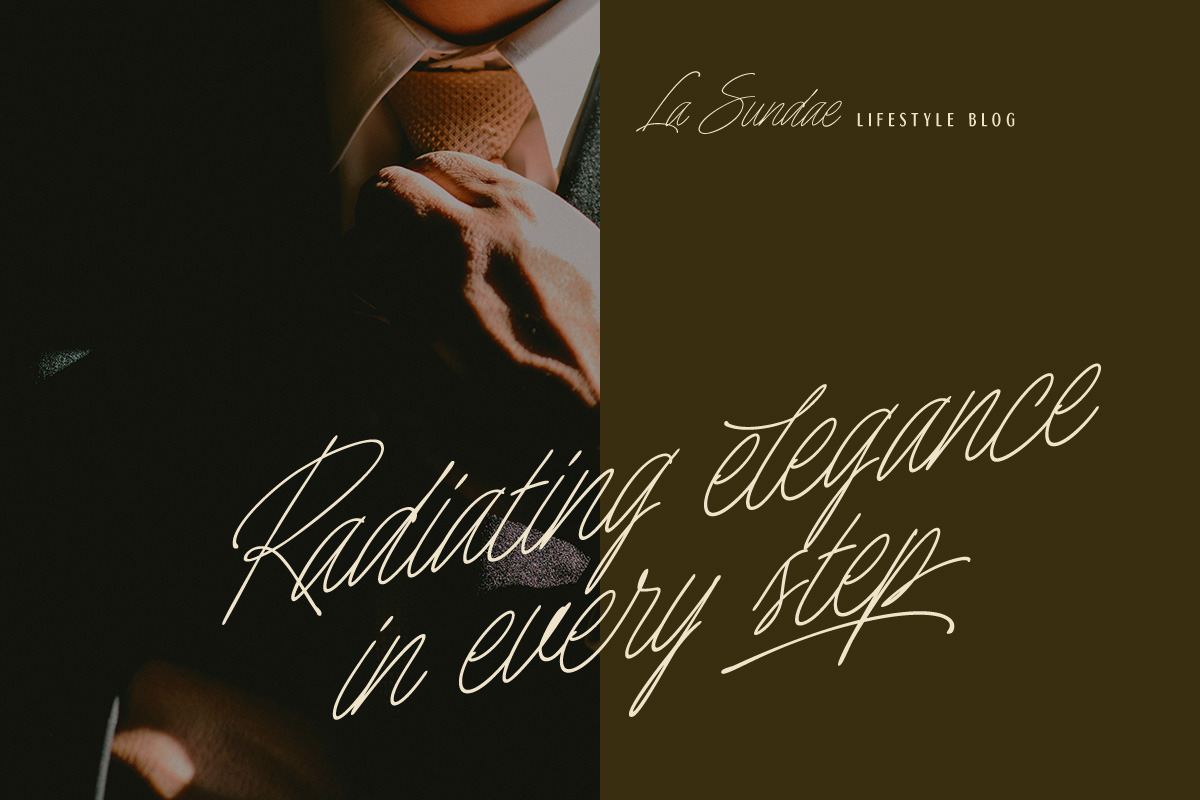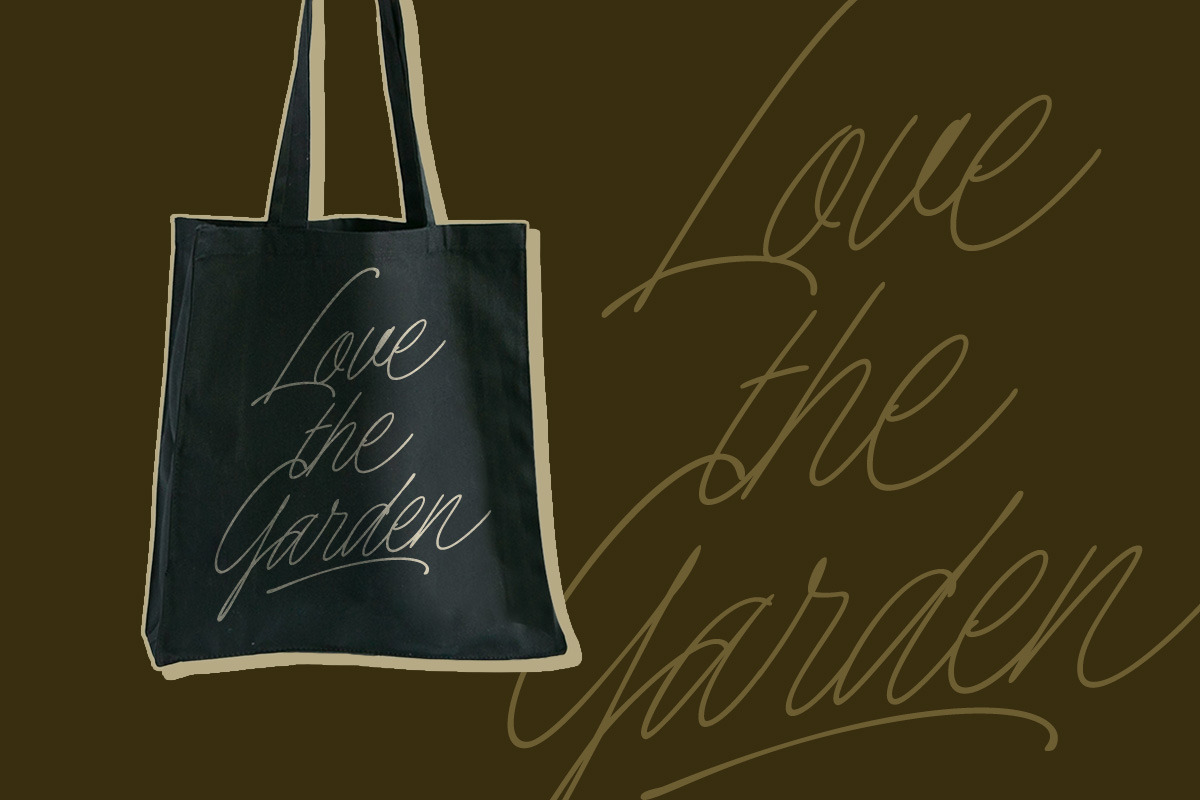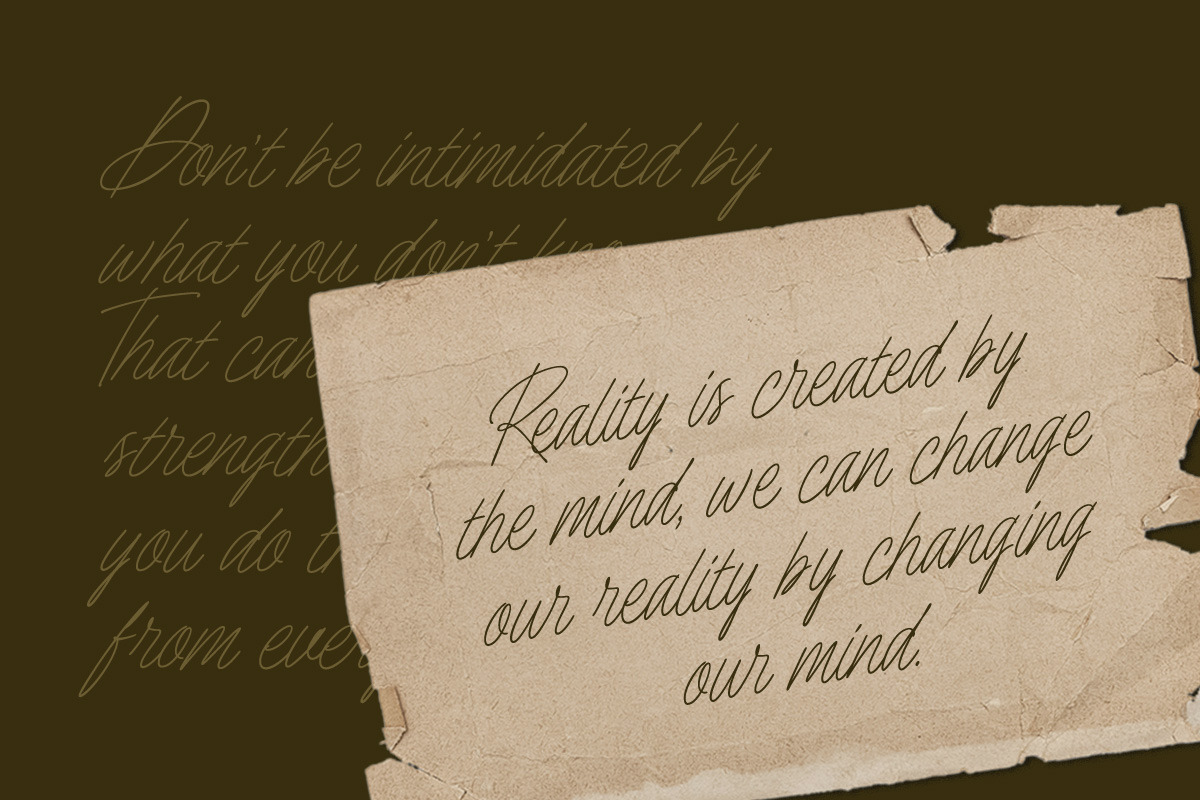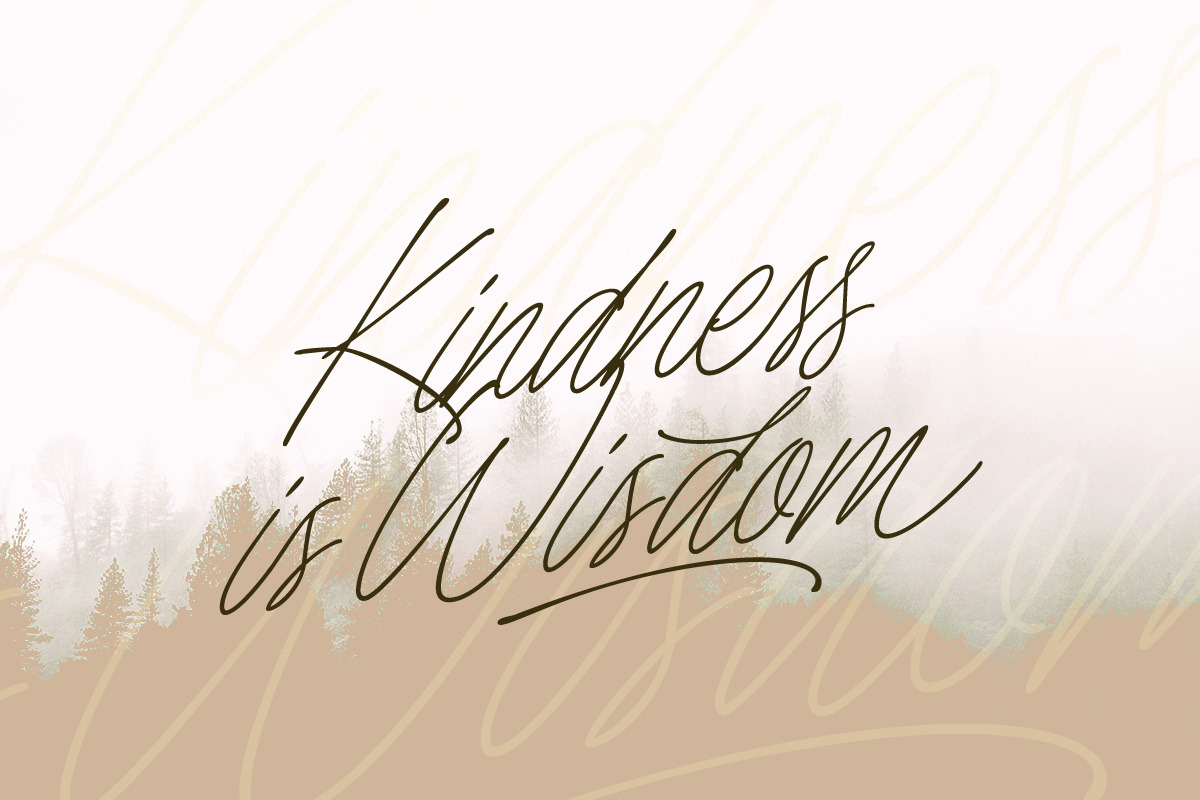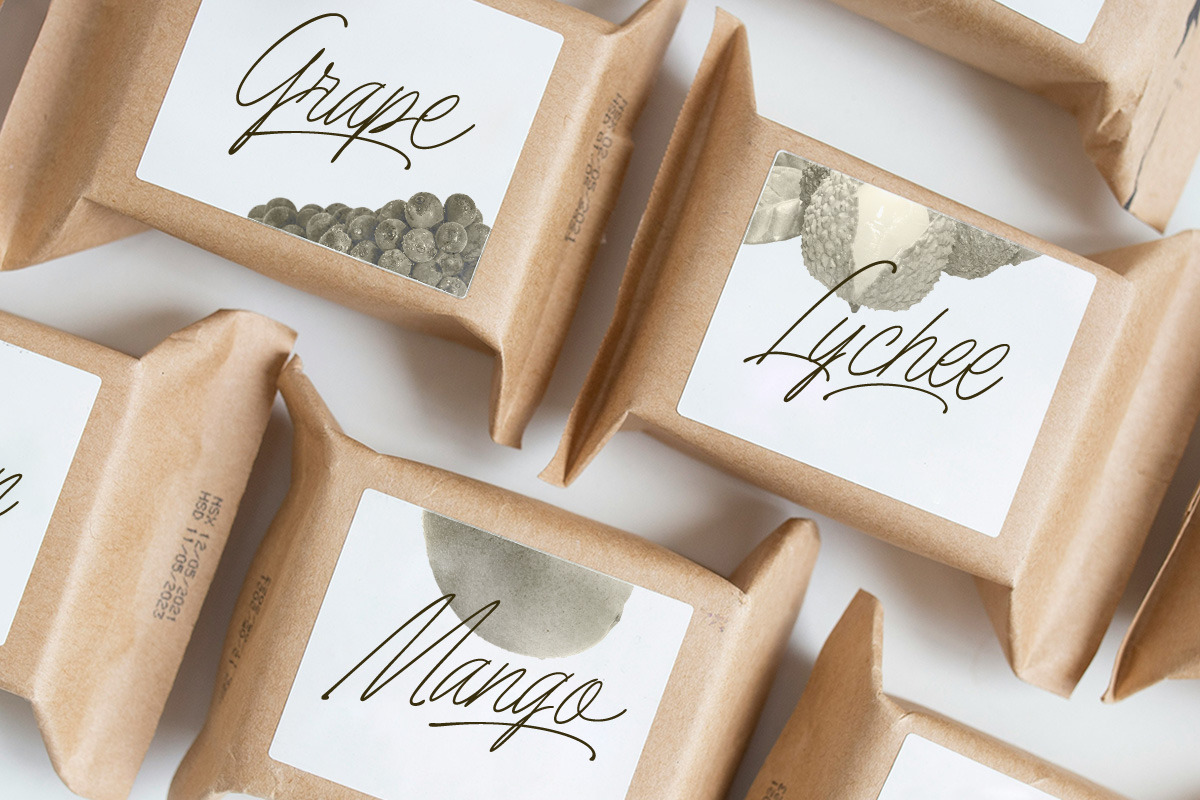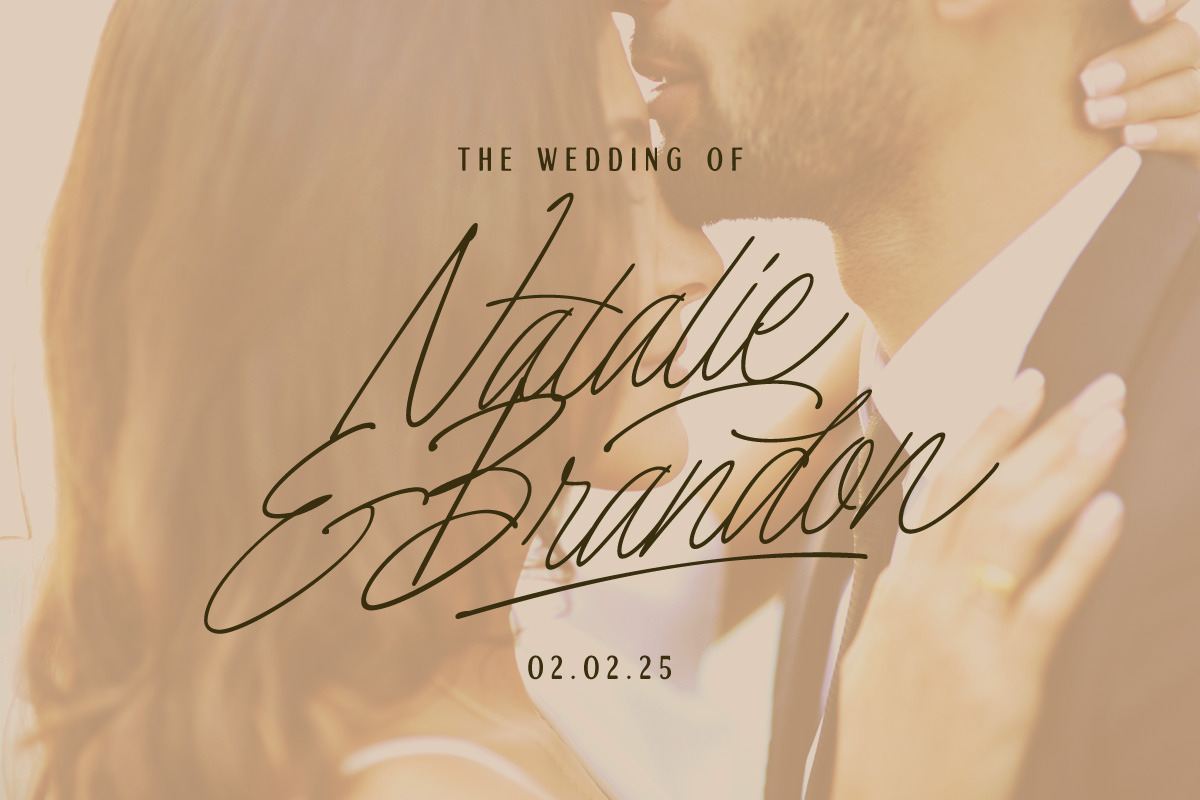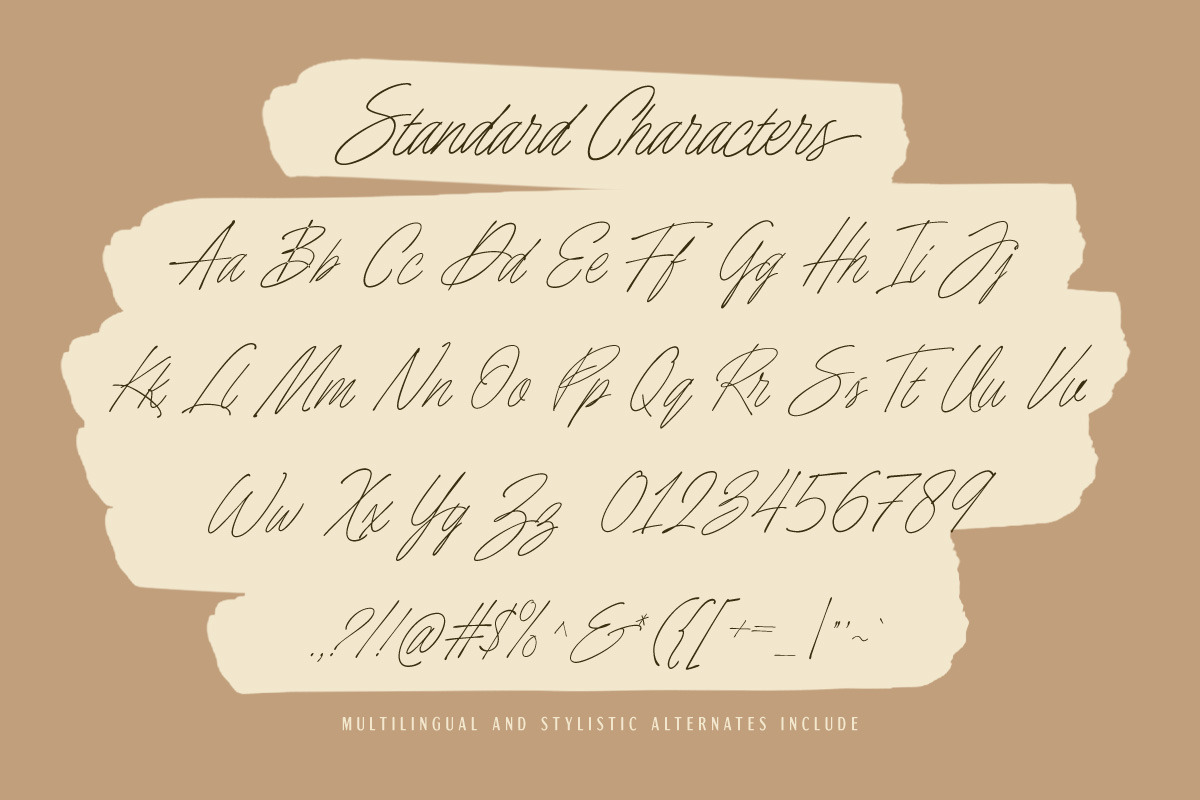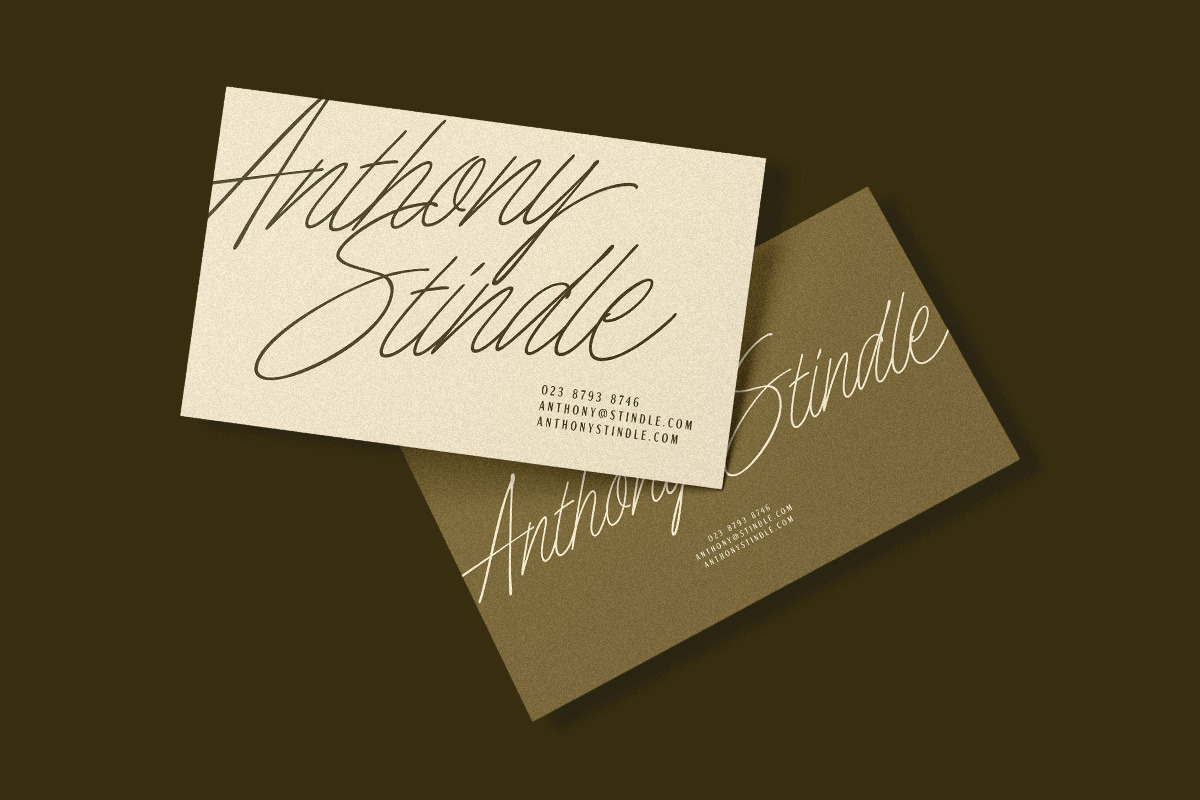
Astonilac – Monoline Script
Astonilac is a stunning script font that exudes sophistication and fluidity. With its graceful, flowing strokes and refined curves, this typeface is perfect for branding, wedding invitations, elegant logos, fashion designs, and high-end packaging.